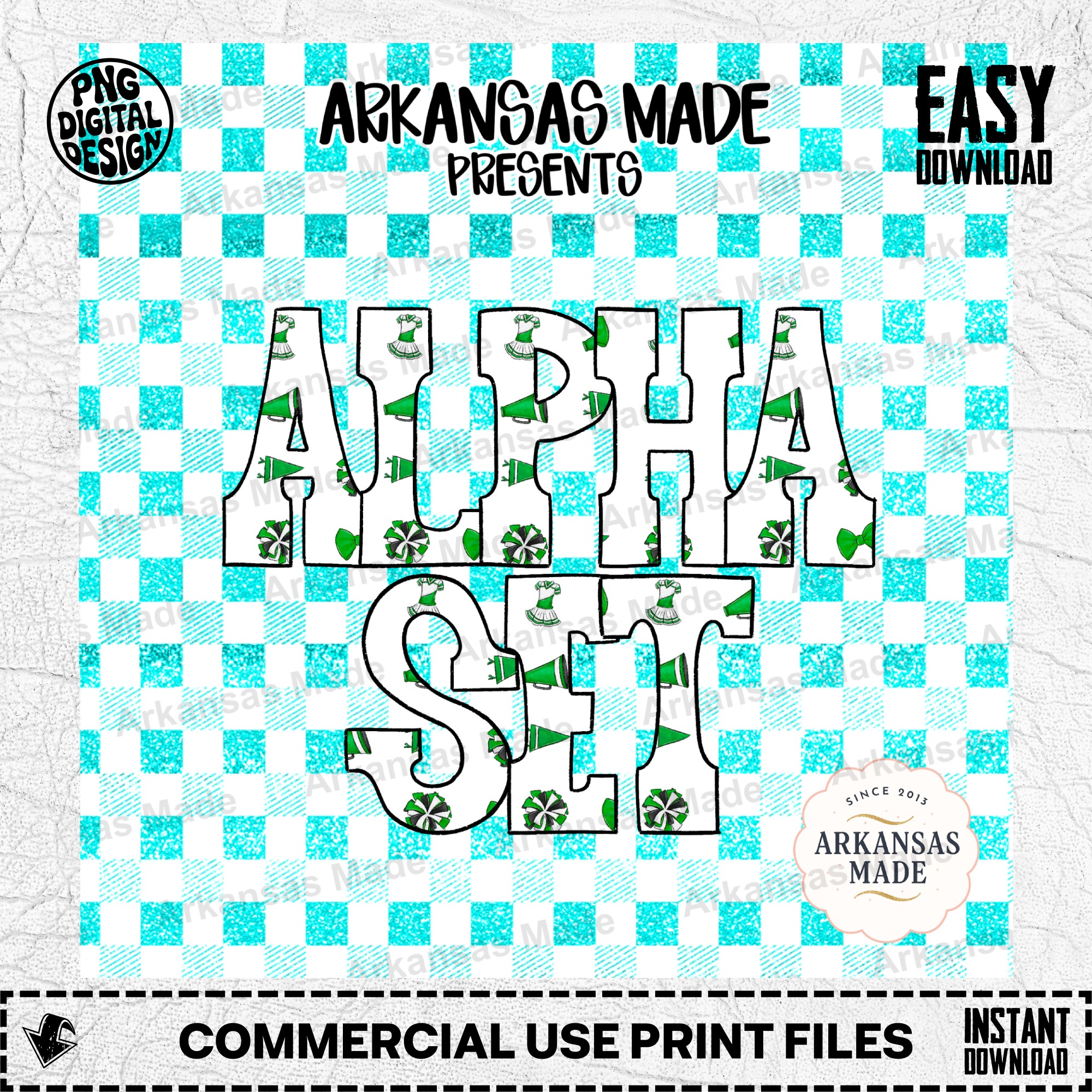
Get ready to cheer with our vibrant Green Cheerleader Alpha Set PNGs! Perfect for adding team spirit to digital crafts and designs. This spirited digital alphabet features cheer uniforms, megaphones, and pom-poms, ideal for showcasing school pride or supporting your favorite athlete. Crafters, cheer moms, and coaches will love creating custom t-shirts, banners, and personalized gifts for any sports occasion or pep rally.